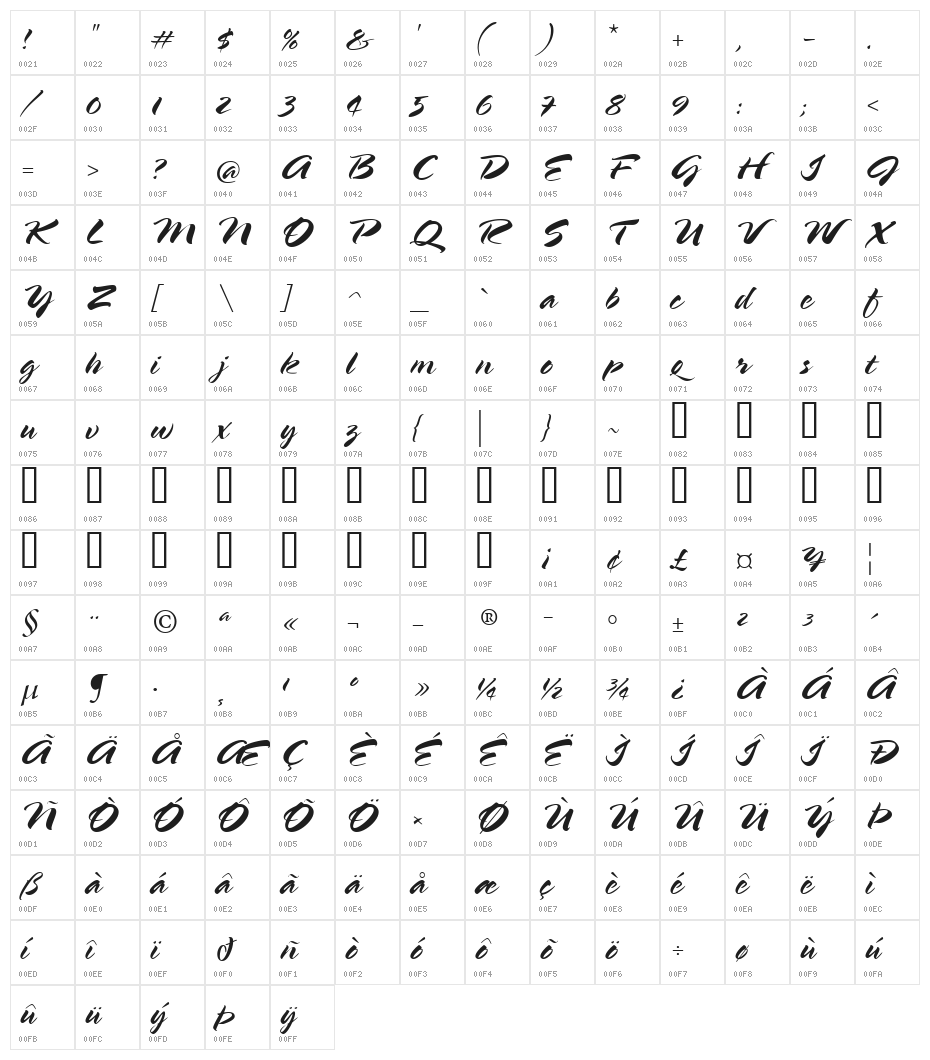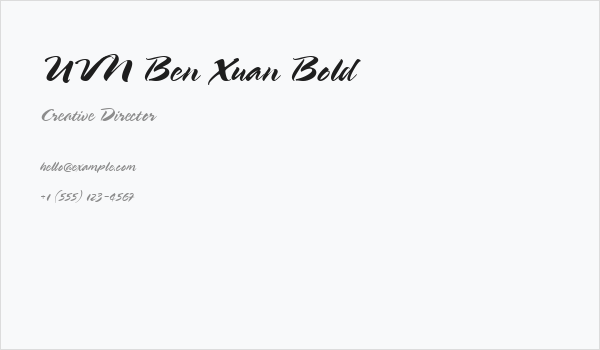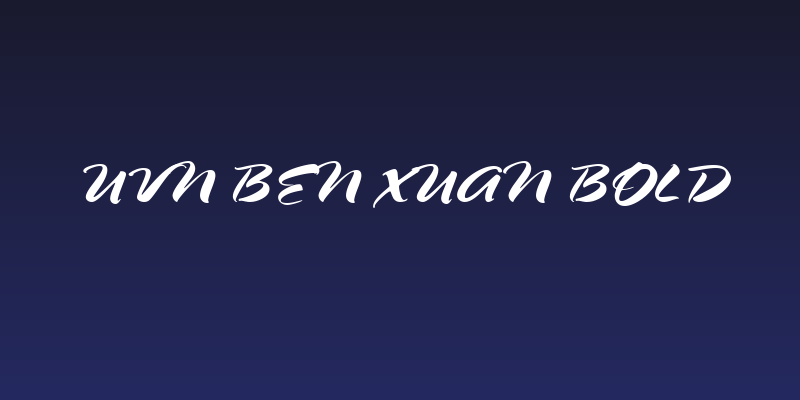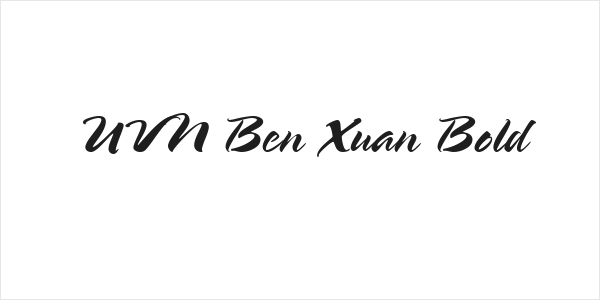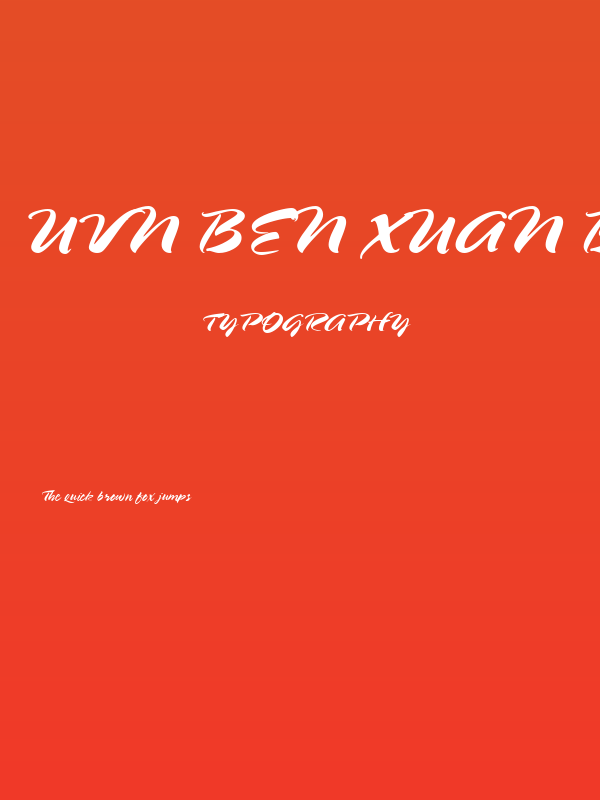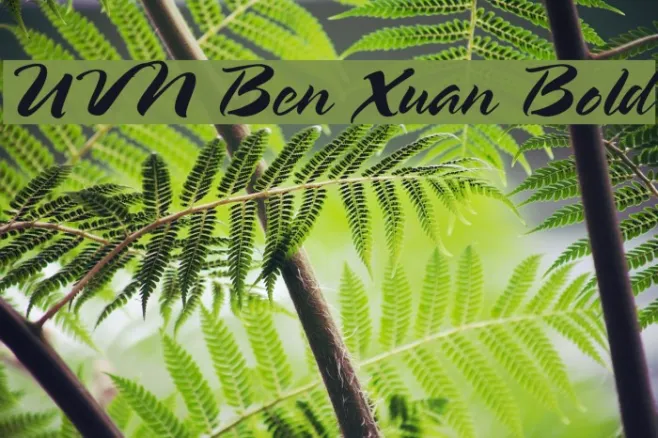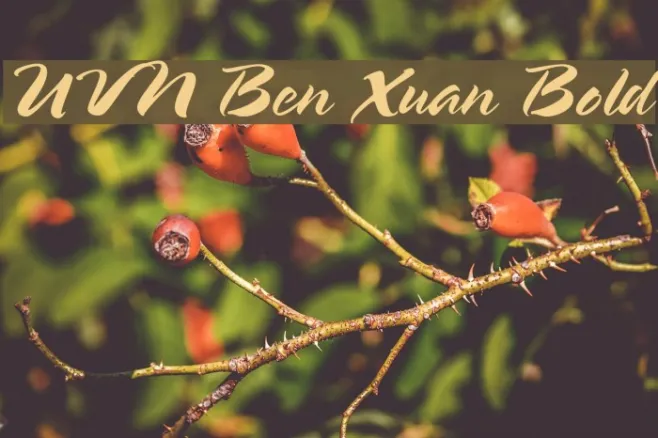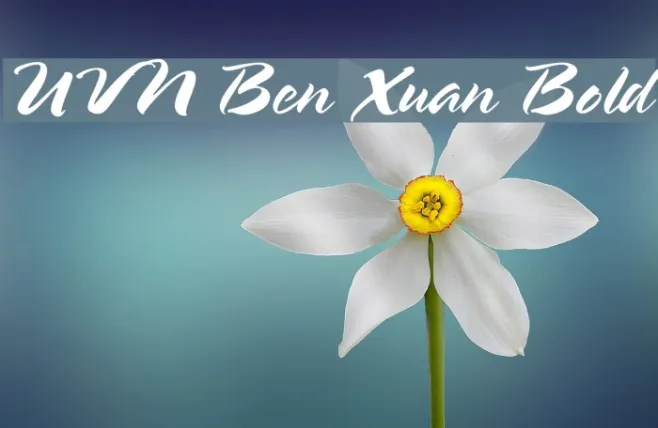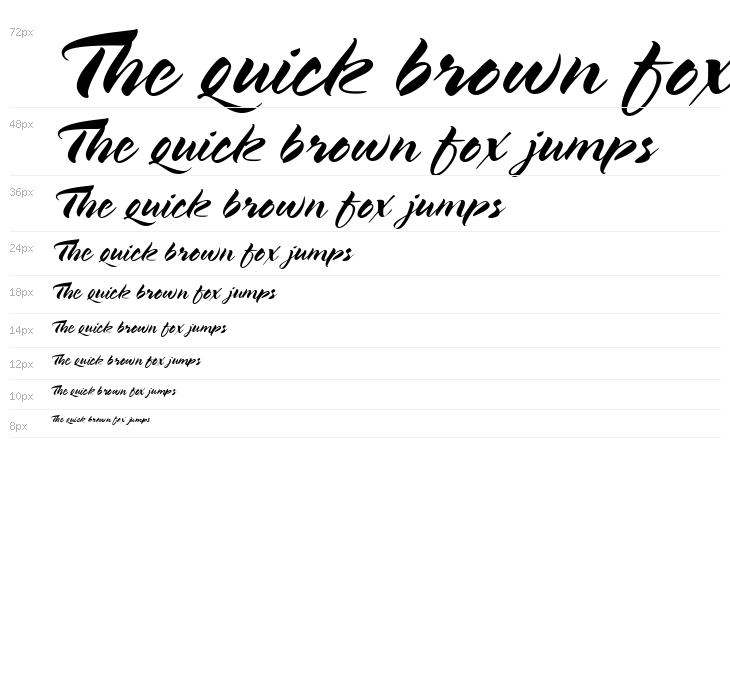
UVN Ben Xuan Bold Font
UVN Ben Xuan Bold Description
This font features a bold and expressive script style, characterized by its flowing, cursive letterforms that convey a sense of elegance and dynamism. The strokes are thick and confident, with a high contrast between thick and thin lines, giving it a dramatic and eye-catching appearance. The uppercase letters are particularly striking, with sweeping curves and flourishes that add a touch of sophistication. The lowercase letters maintain a consistent style, ensuring readability while still being decorative. The numerals and special characters are designed to match the overall aesthetic, making this font versatile for various design needs.
| Overall Style | Elegant, Decorative |
| Proposed Projects | Ideal for wedding invitations, branding projects, logo design, and elegant packaging. |